- Six award-winning works selected through a 100:1 competition are now available as font-based merchandise, marking Sandoll’s full-fledged entry into the K-content IP business
- Sandoll to continue developing diverse business opportunities combining fonts with K-content
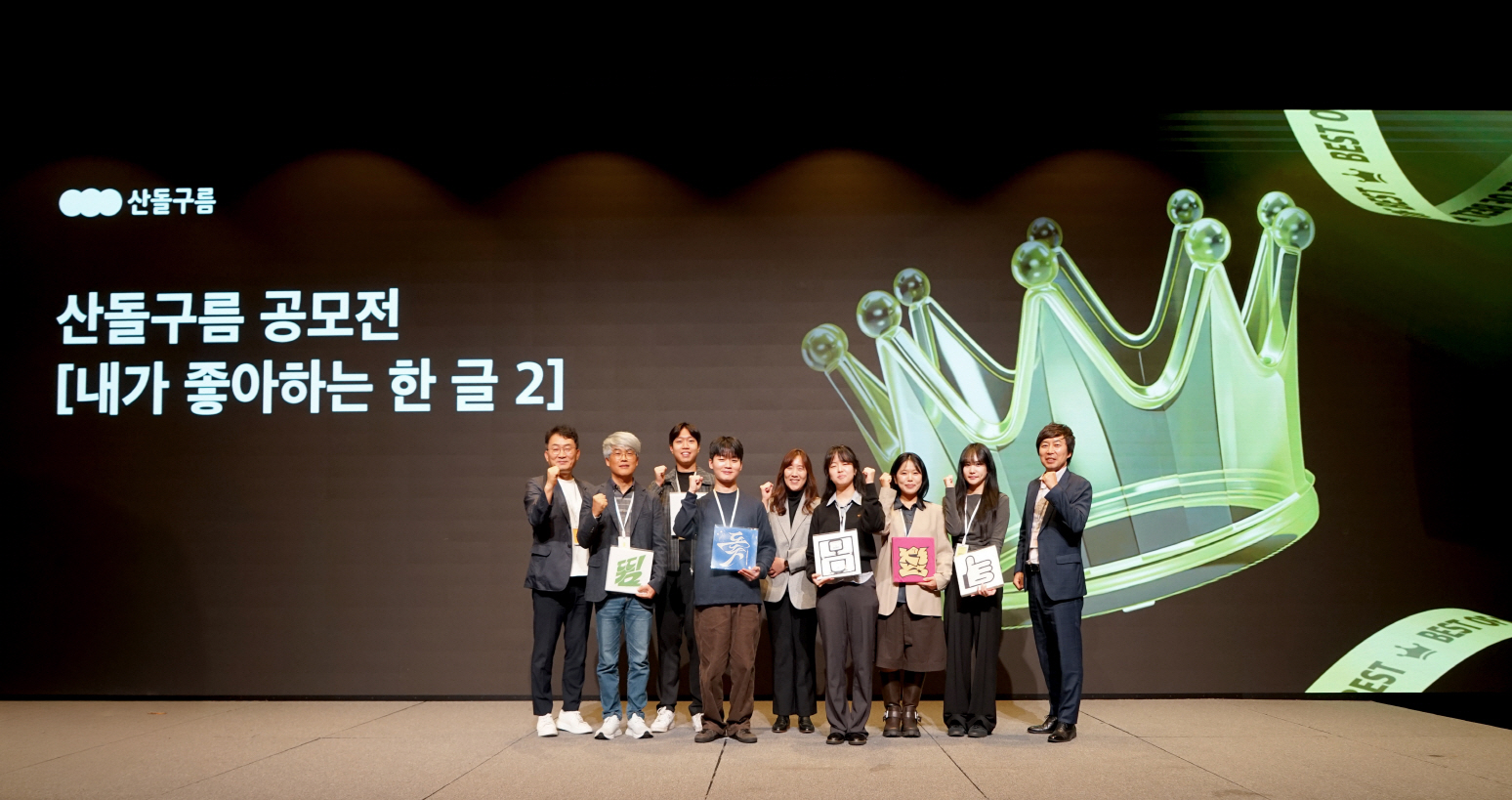
Creative content platform company Sandoll Inc. (CEO Youngho Yun) announced on the 21st that its platform SandollCloud successfully hosted the awards ceremony for “My Favorite Hangul, Season 2” on October 20 at the Spigen Hall in Gangnam, Seoul.
“My Favorite Hangul” is SandollCloud’s signature design competition that focuses on the essence of typography—Hangul itself—and invites creators to express their emotions and stories through a single letter.
This year’s competition recorded an impressive 100:1 competition rate, drawing overwhelming interest from the creative community. The winning works reinterpret the structural and emotional beauty of Hangul, expressing each creator’s unique perspective and sentiment through the form of a single character. By transforming these works into tangible products, Sandoll has demonstrated how fonts can evolve beyond visual language into new IP content that connects industries and culture.
The project also highlighted the potential for fonts to become a core expressive language of K-content, moving beyond their traditional role as design assets. By integrating typography with diverse fields such as branding, video, webtoons, and gaming, fonts are increasingly serving as cultural tools that visually convey emotion and identity, reinforcing their position at the heart of the K-content ecosystem.
The competition drew participation from a wide range of creators—from professional designers to everyday enthusiasts—demonstrating the universal appeal of Hangul as a creative medium. The winning works showcased how letters can function as emotional language, proving both the cultural value and artistic potential of fonts.
The awards ceremony brought together creators, SandollCloud representatives, and partners from FESTIVER to celebrate “the moment of one letter.” An exhibition of the winning entries—transformed into the “Lettering Goods Collection”—allowed visitors to experience firsthand how creators’ emotions were brought to life through everyday products.
This year’s Grand Prize went to the single-letter work “돛 (Sail)” by Dongwook Ko, who explained, “Just as you cannot change the wind but can adjust your sail, I wanted to express the idea of maintaining direction and perspective in changing situations. It’s meaningful to see my work transformed into a real product that can reach more people.”
A SandollCloud representative stated, “This competition is not merely a design contest, but a sustainable model for transforming creators’ emotions into IP content and expanding the boundaries of the font industry. It also represents an important step toward integrating typography into the broader K-content ecosystem. Moving forward, SandollCloud will continue building collaborations that enable creators’ emotions and stories to expand into products, experiences, and culture.”